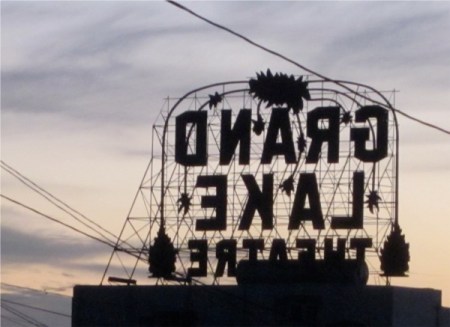
I was in San Francisco earlier this month and took this picture while across the Bay in Oakland. Why do words in reverse have such a magnetism? They’re still legible, but at the same time they’re peculiar graphic marks that suggest the strangeness of all written language.
One thing I particularly love about this sign is the network of beams holding the letters aloft. From a distance it has the look of a cobweb.